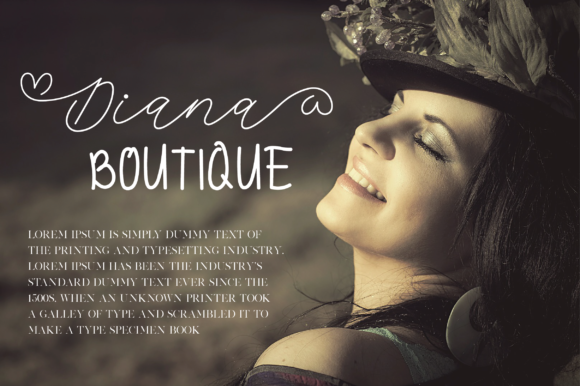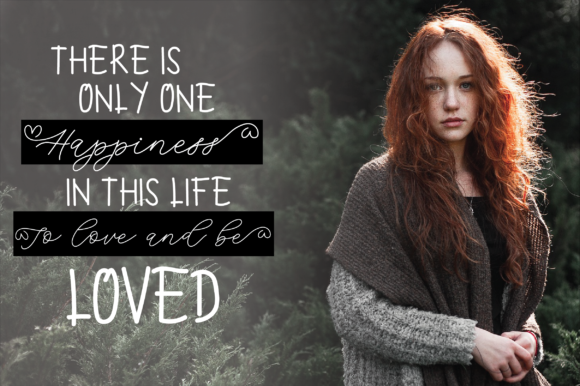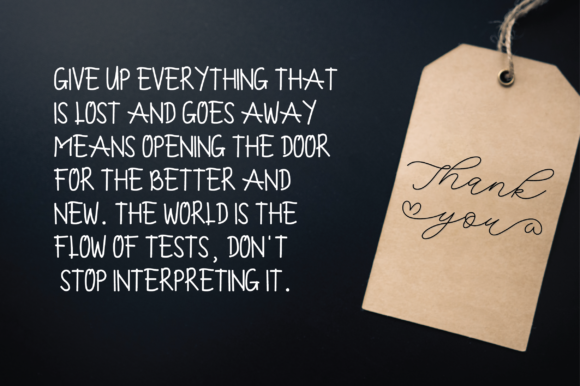
Bianca Forgotten Duo Font
About Bianca Forgotten Duo Font
Bianca Forgotten is a unique font duo with a lot of versatility. It will put a contemporary and elegant twist on any design idea.